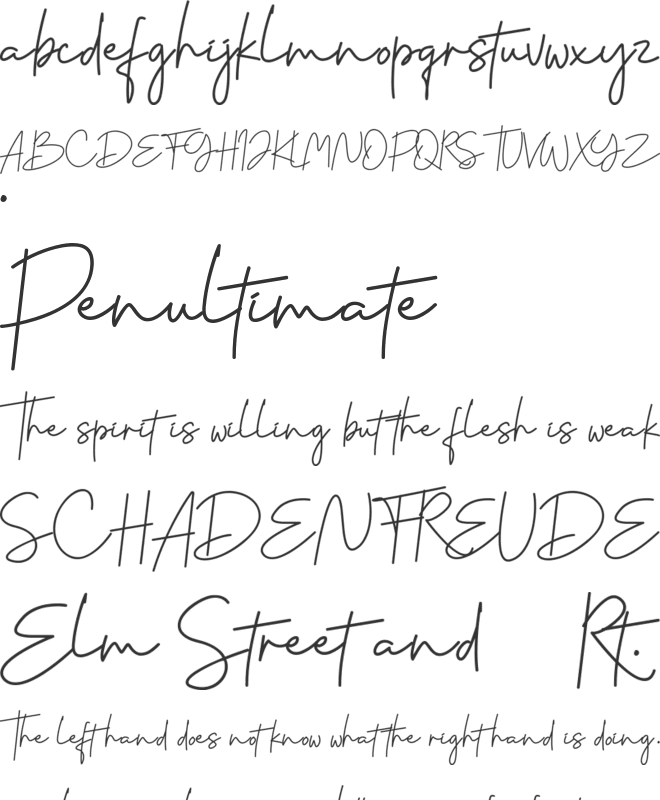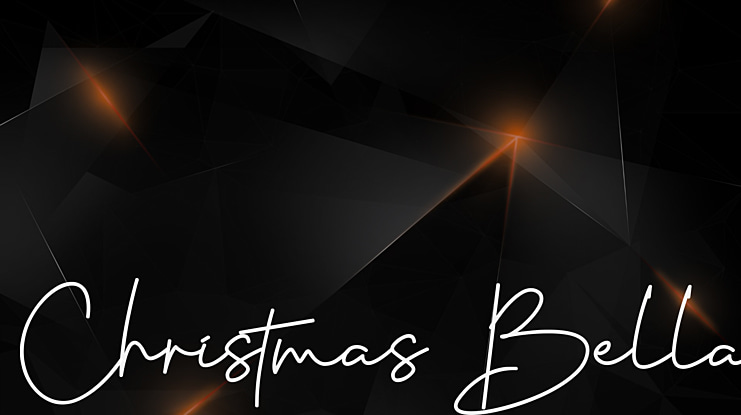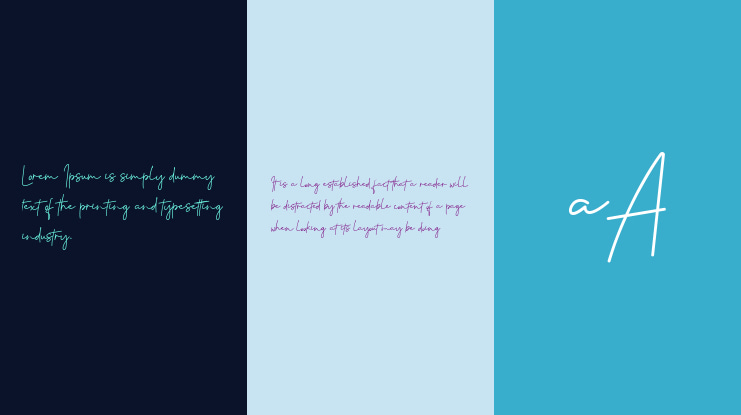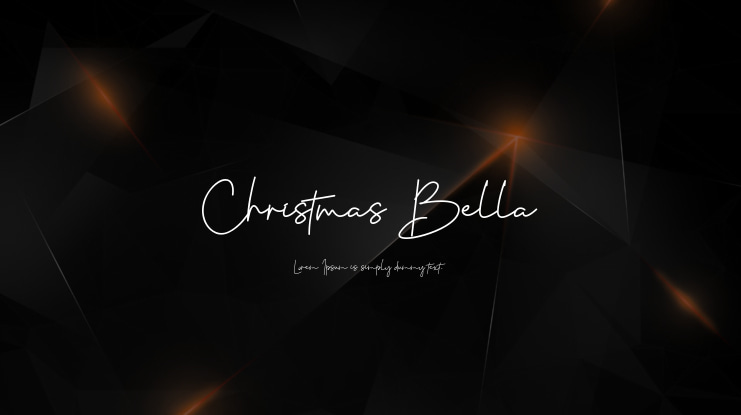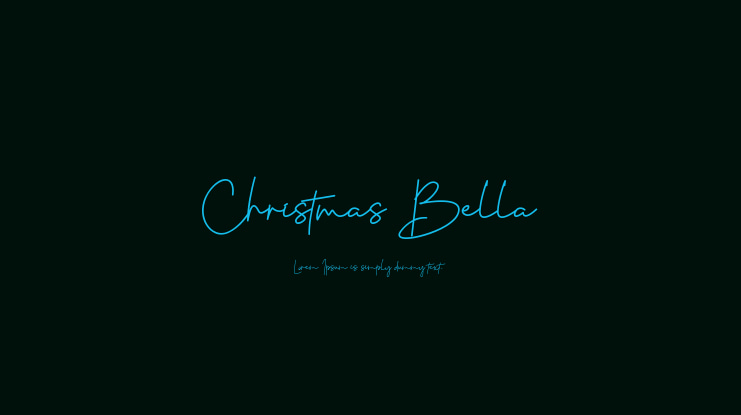
Christmas Bella Font
A fancy and elegant handcrafted font that create to impress your audience and make your branding shine.
Make your projects dance with this elegant and wonderful font wherever you use it. Use it for your
headings, logos, ads, printed quotes, packaging, and even your website or social media branding.